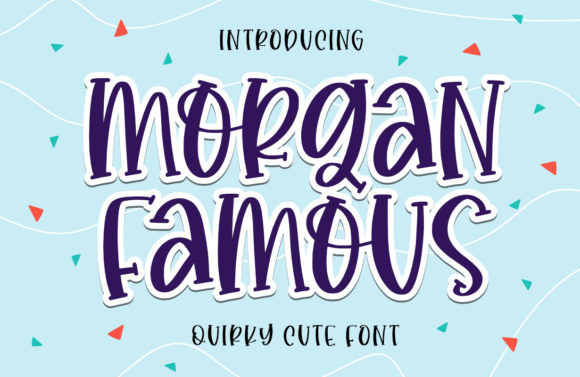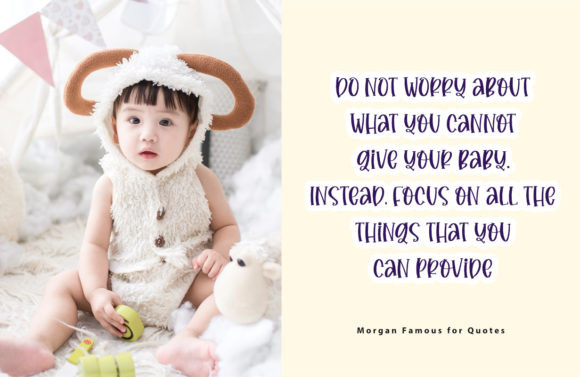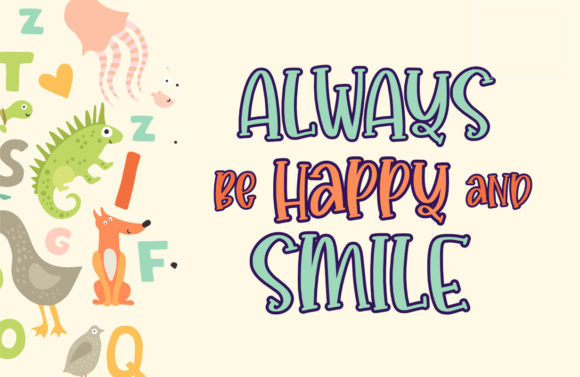
Morgan Famous Font
Morgan Famous is a cute and casual handwritten font with an incredibly friendly feel. This font is the perfect fit for all of your logos, branding, social media, invitations, quotes, stationery and crafty DIY projects.